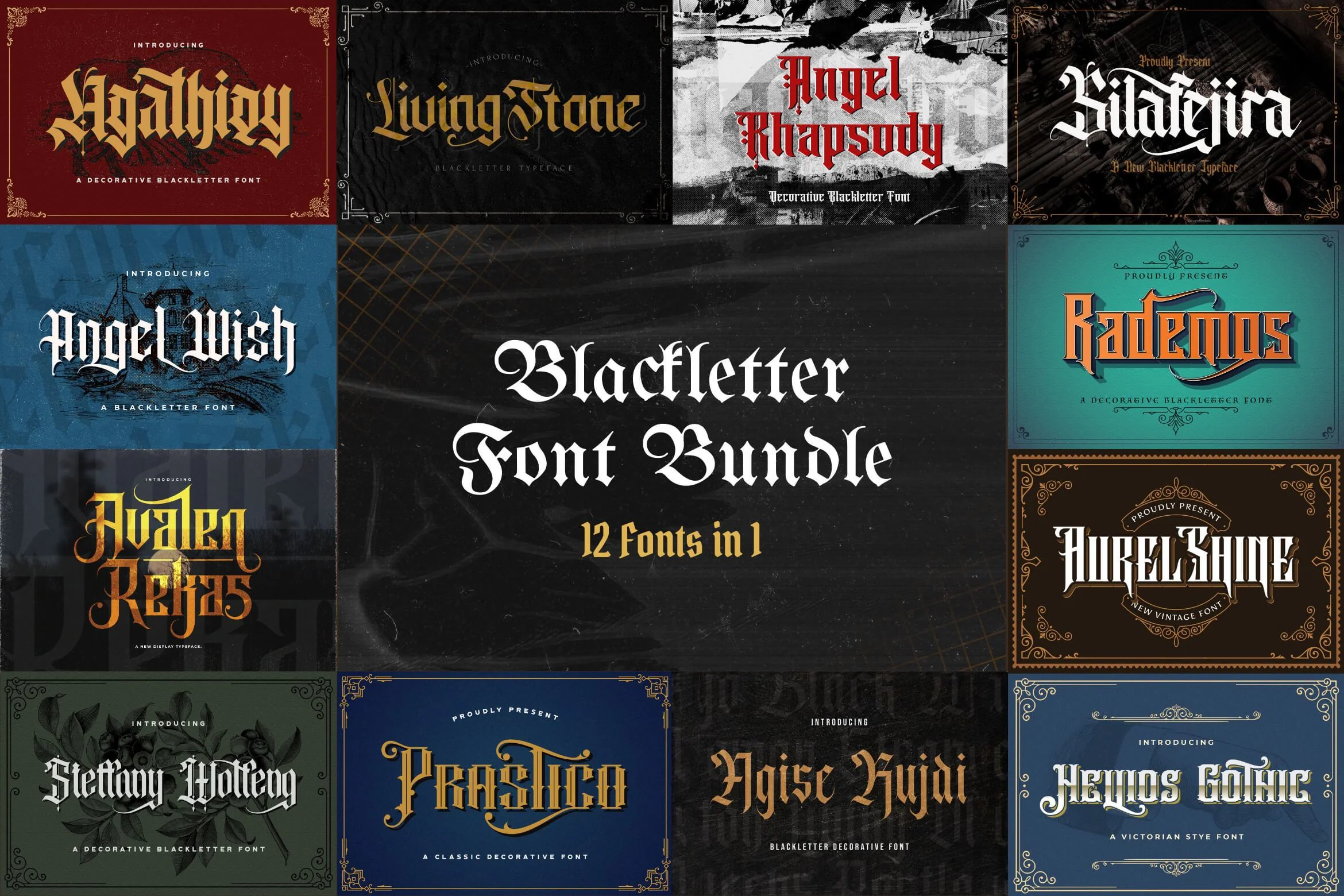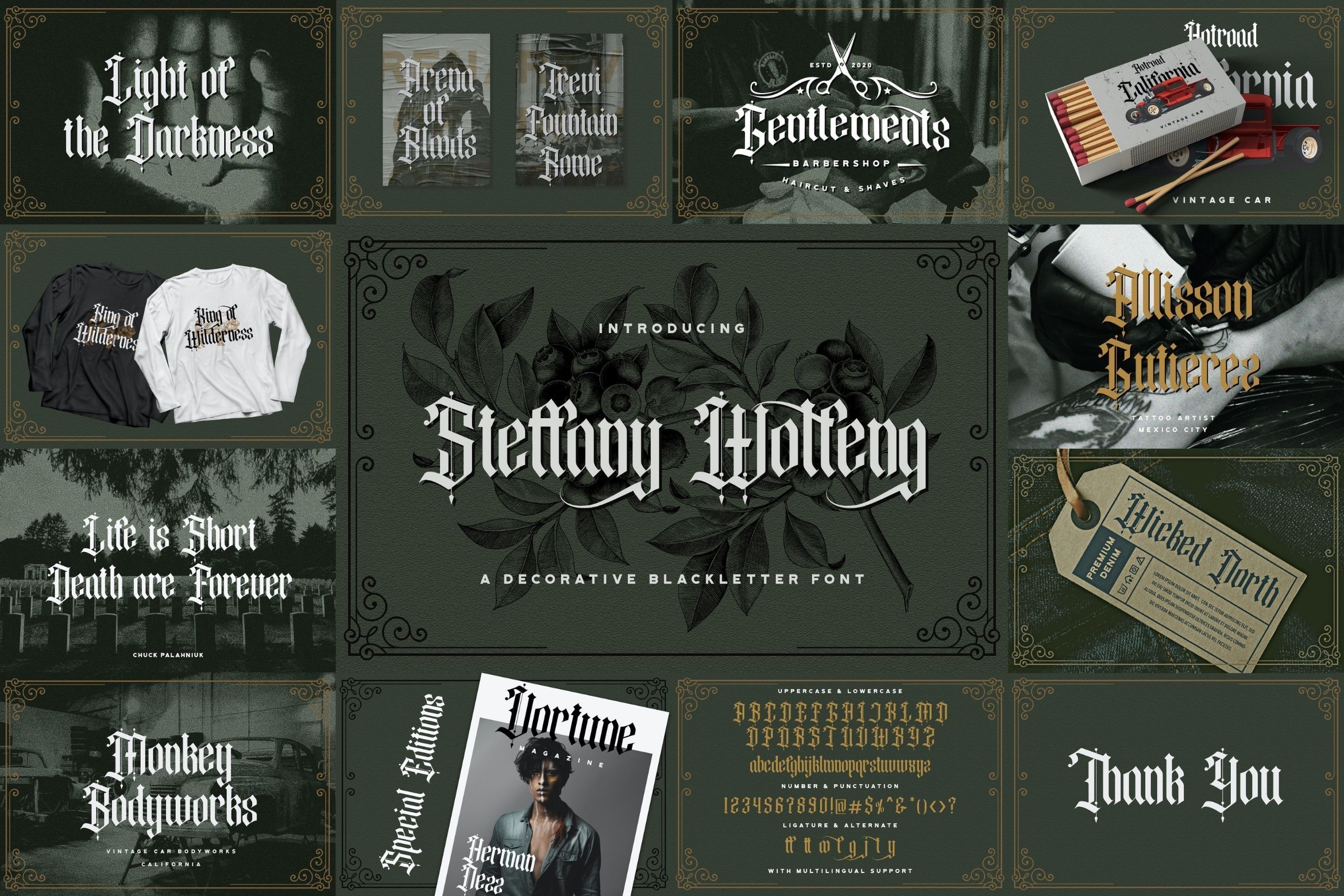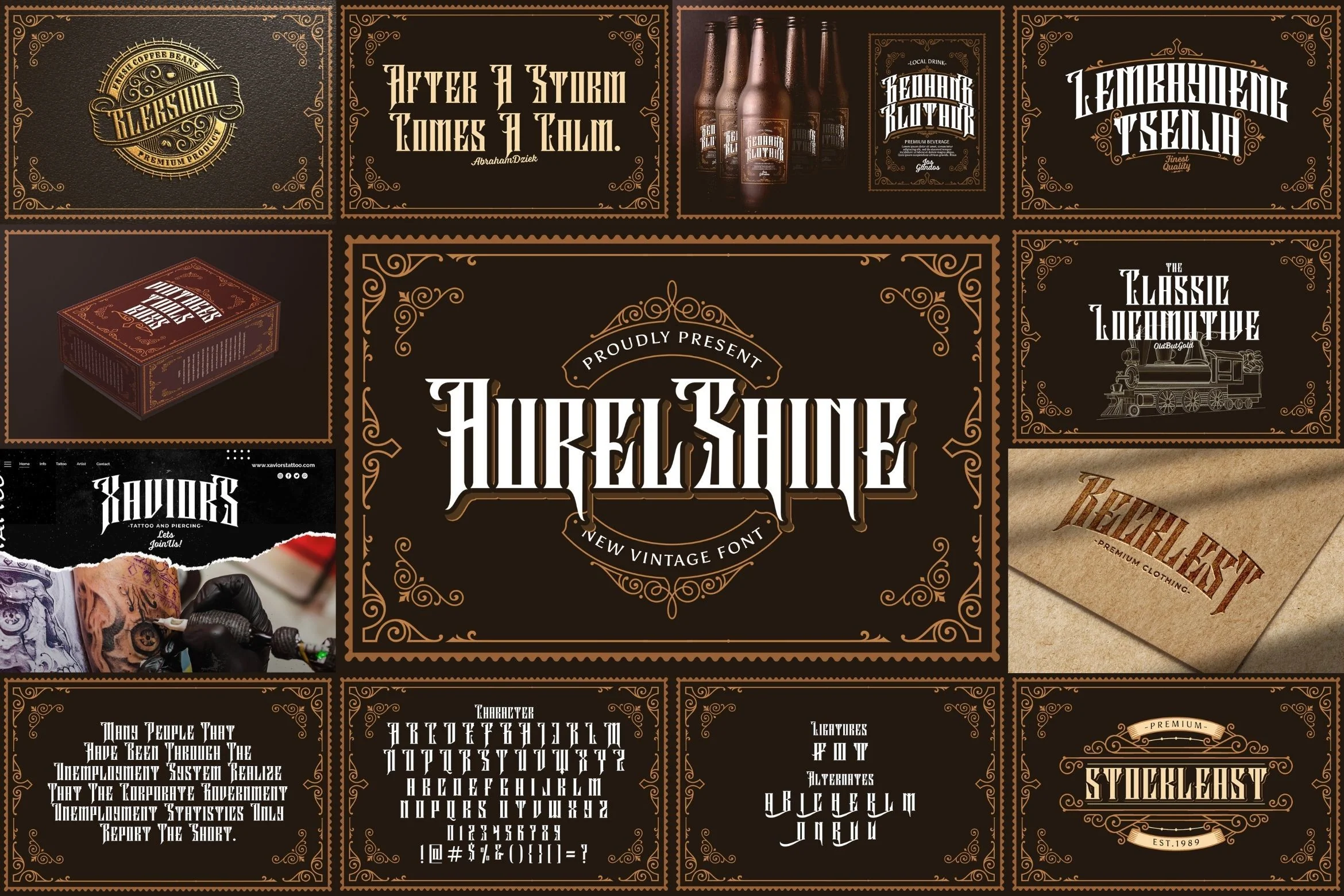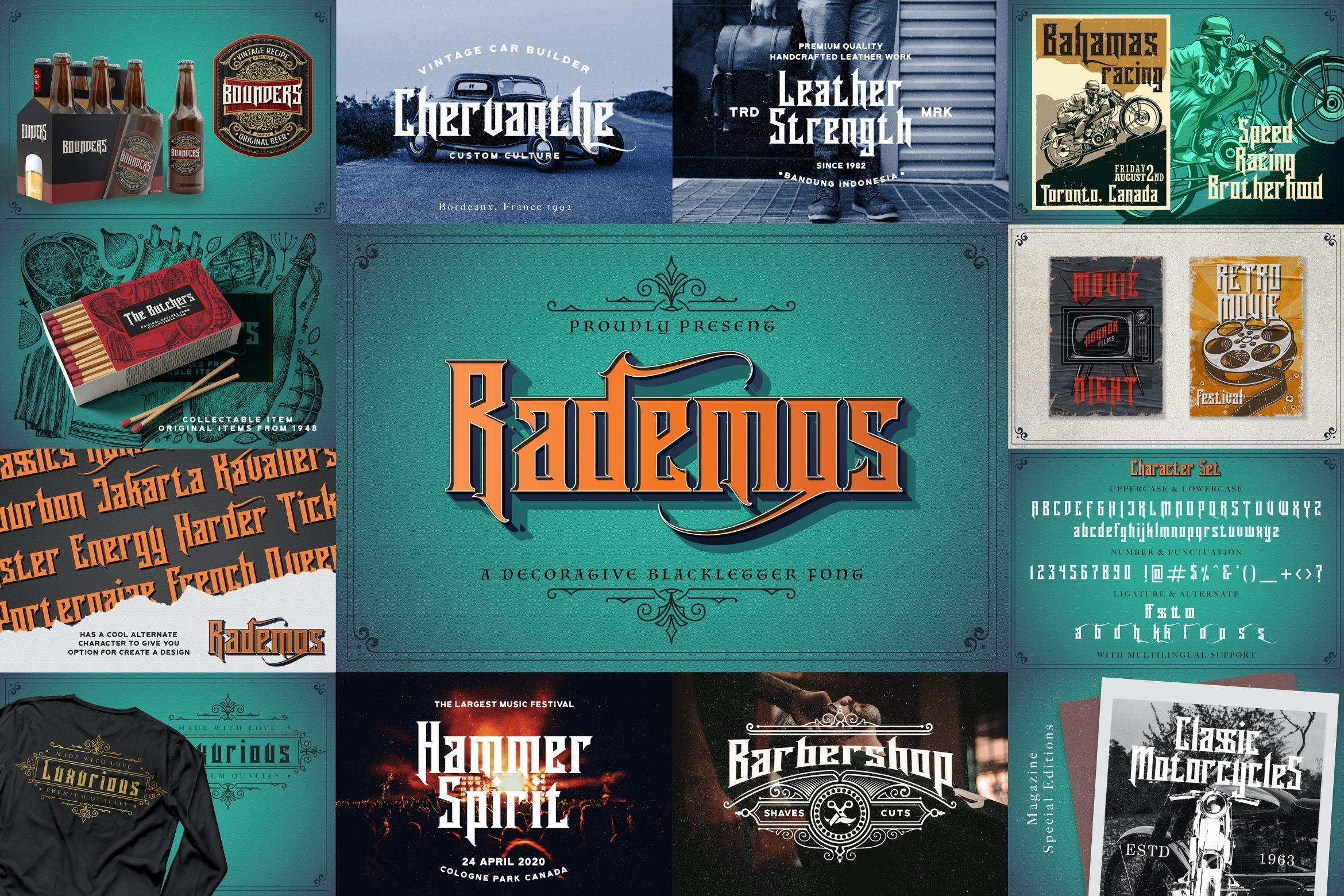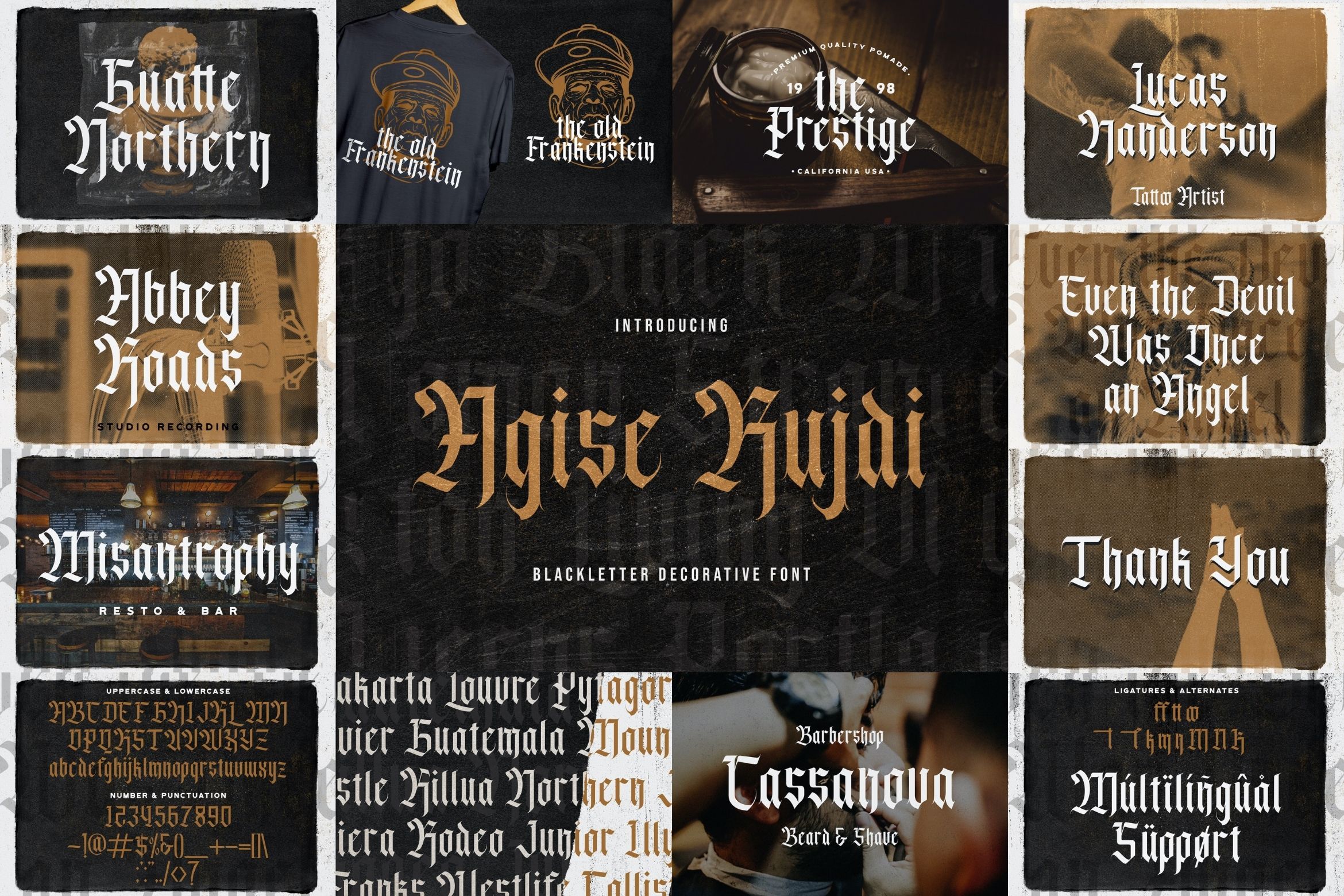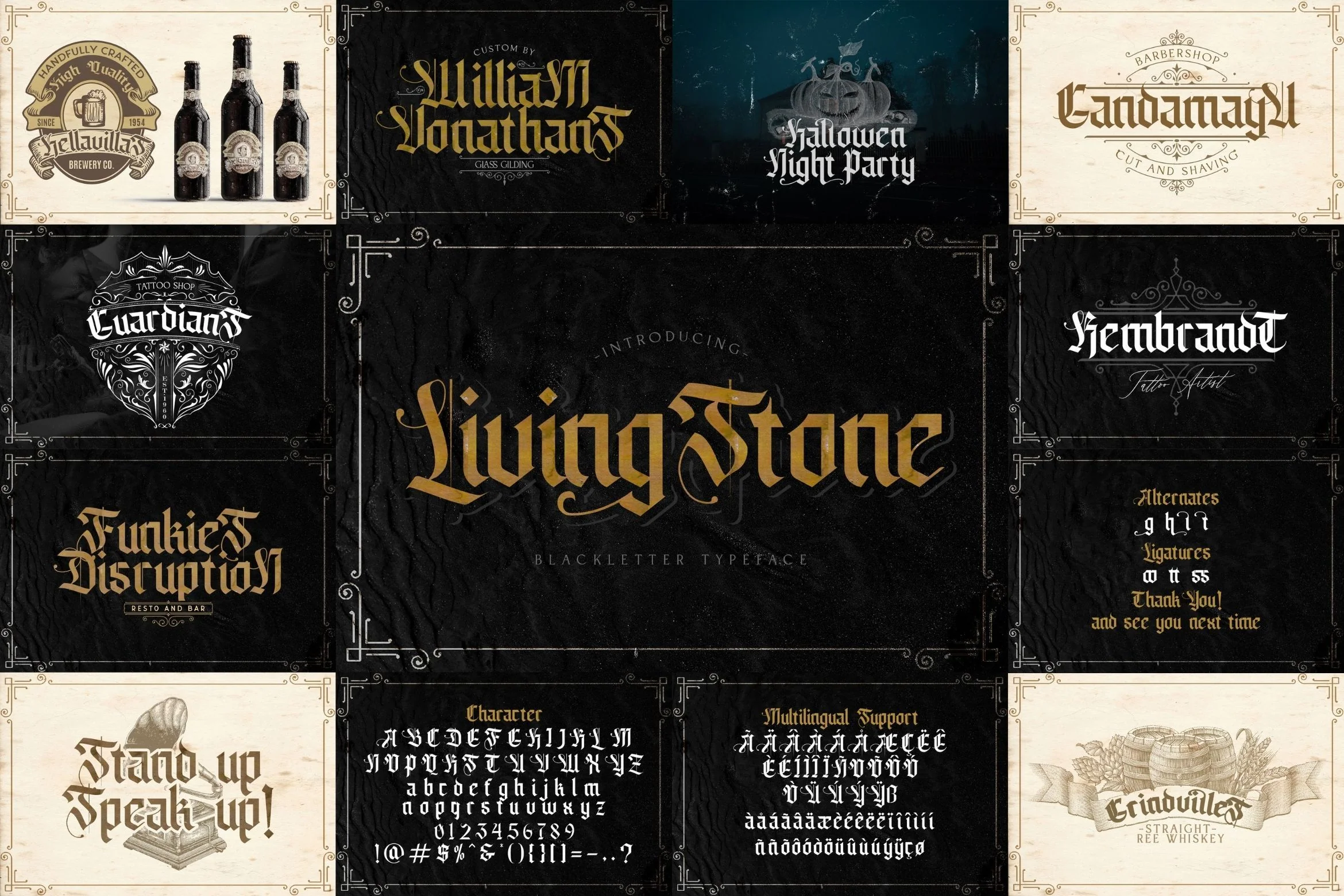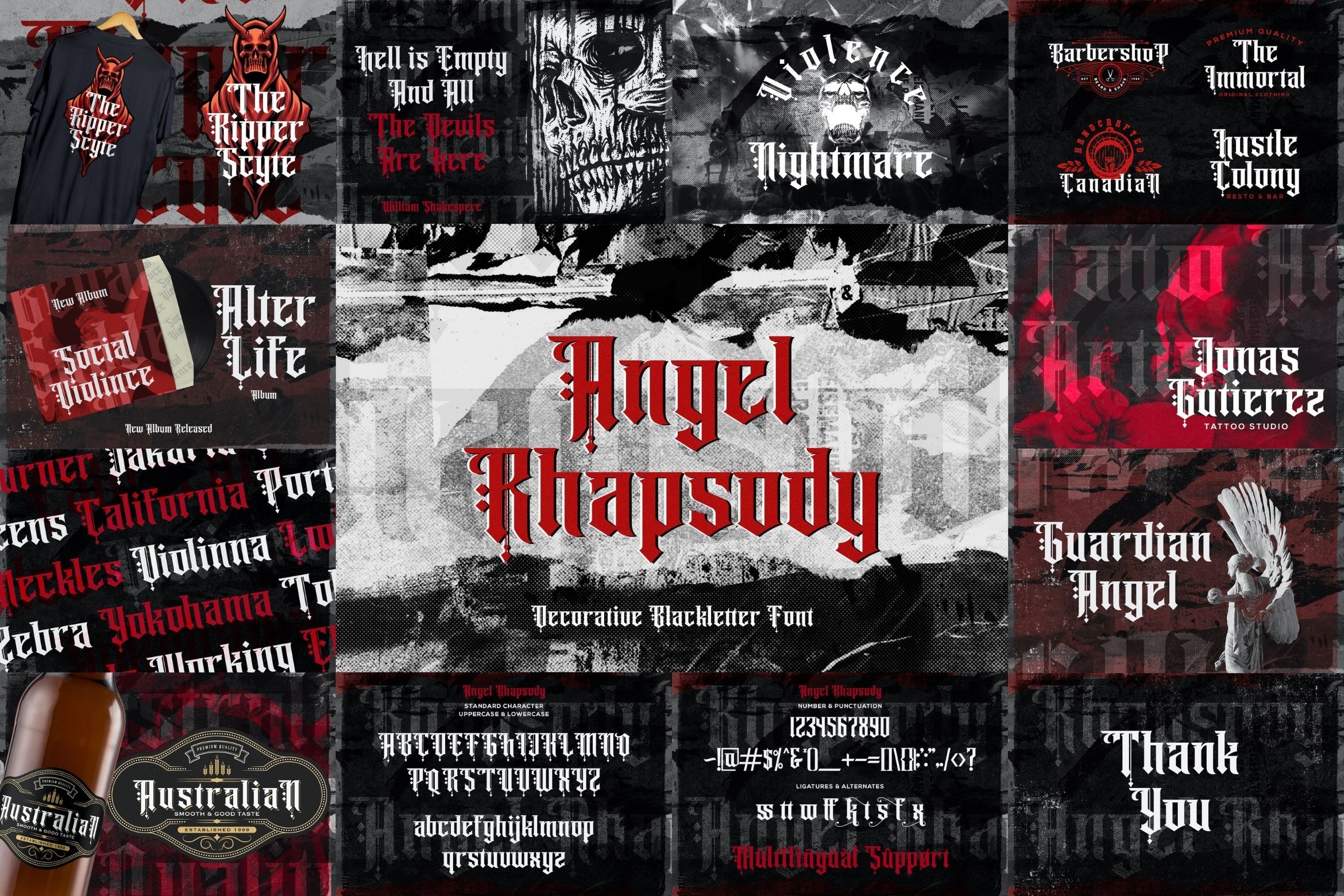
Blackletter Font Bundle Vol 1
Introducing Blackletter Font Bundle Vol 1. This font bundle contains 12 high quality blackletter, victorian, or gothic fonts with many variation styles. This font bundle also has a vintage style that will make your design look outstanding and cool.
1. Hellios Gothic
2. Prastico
3. Agathiqy
4. Silafejira
5. Avalen Rekas
6. Angel Wish
7. Angel Rhapsody
8. Livingstone
9. Agise Rujdi
10. Rademos
11. Aurel Shine
12. Steffany Wolfeng